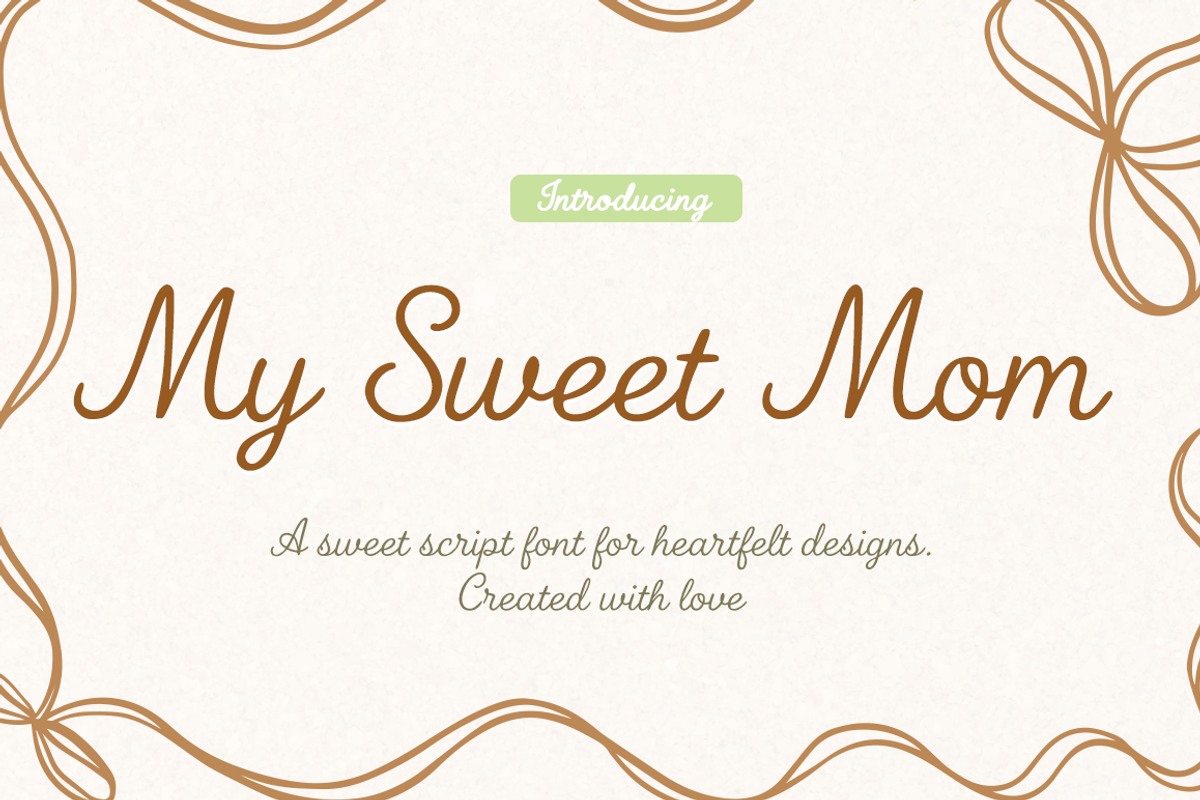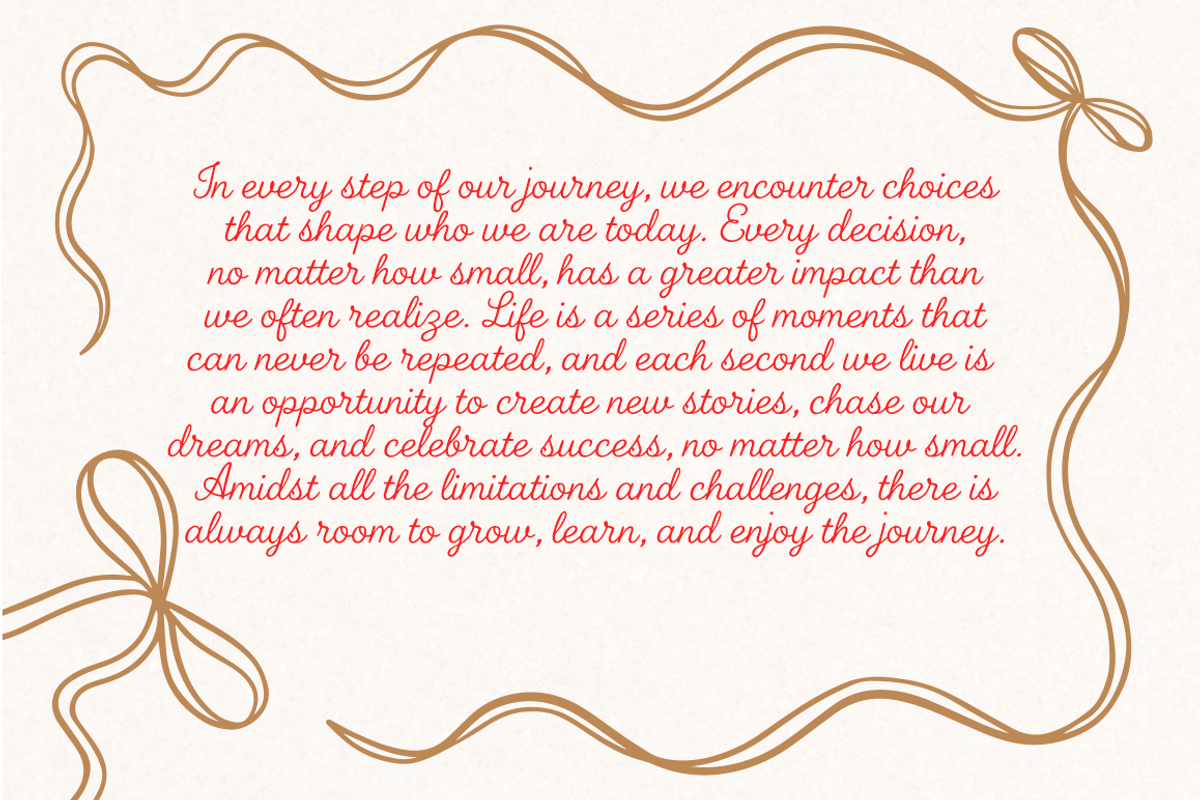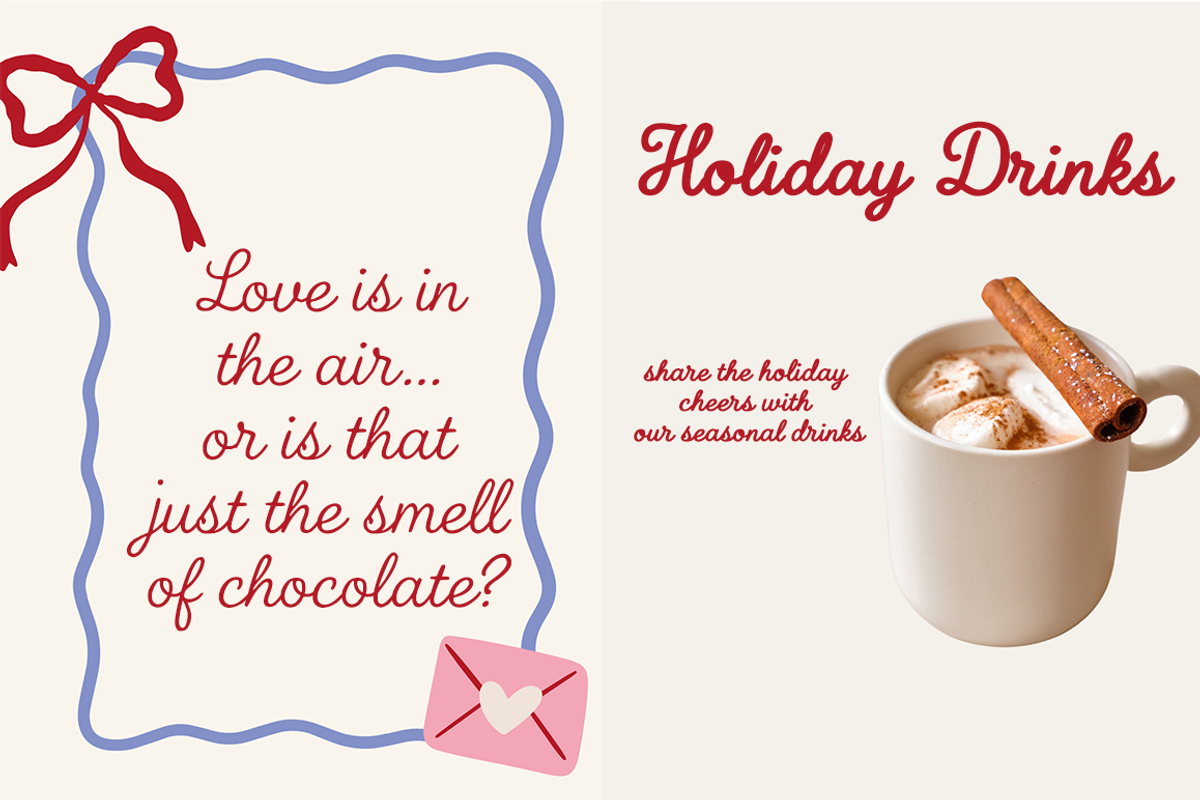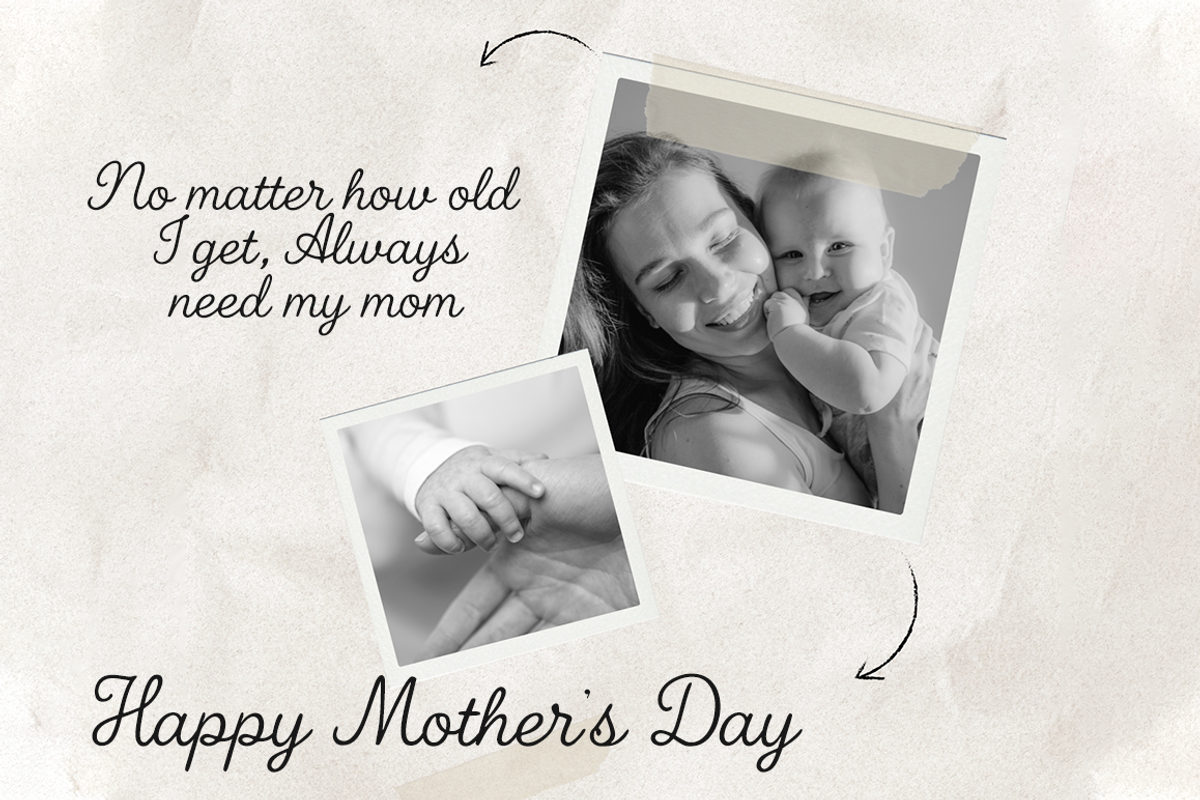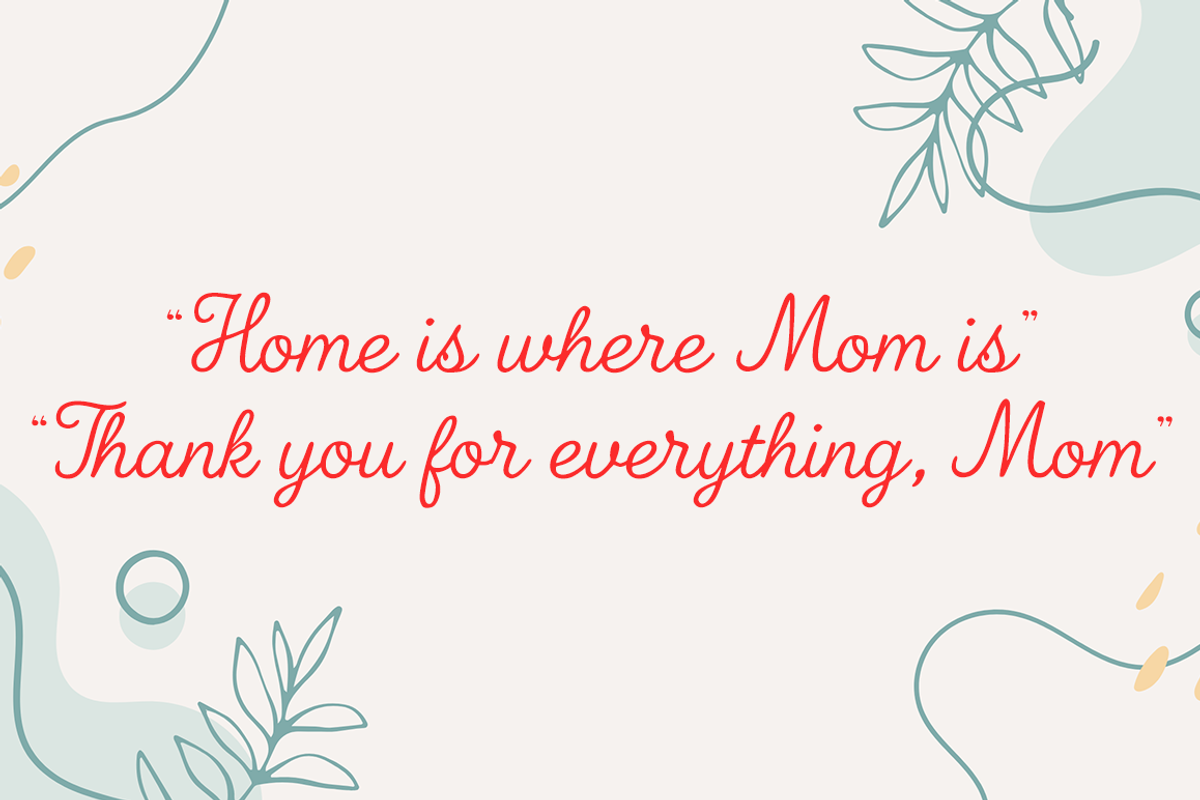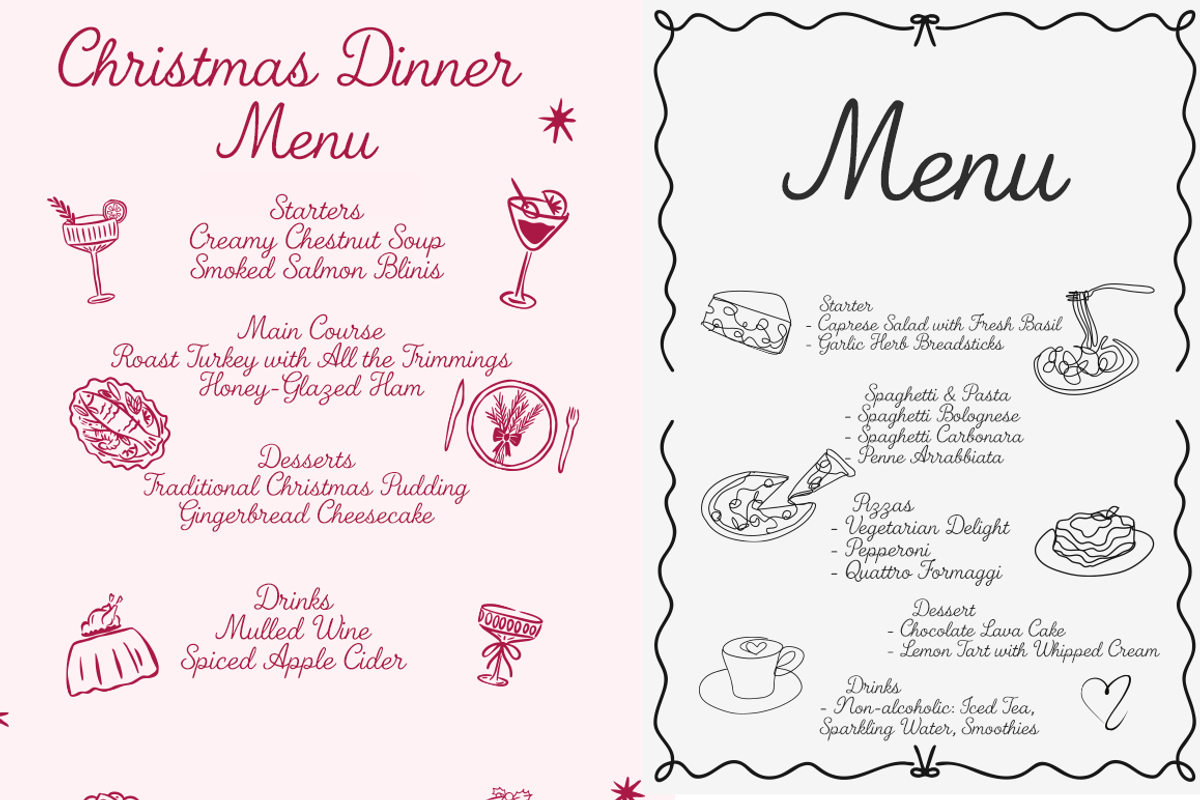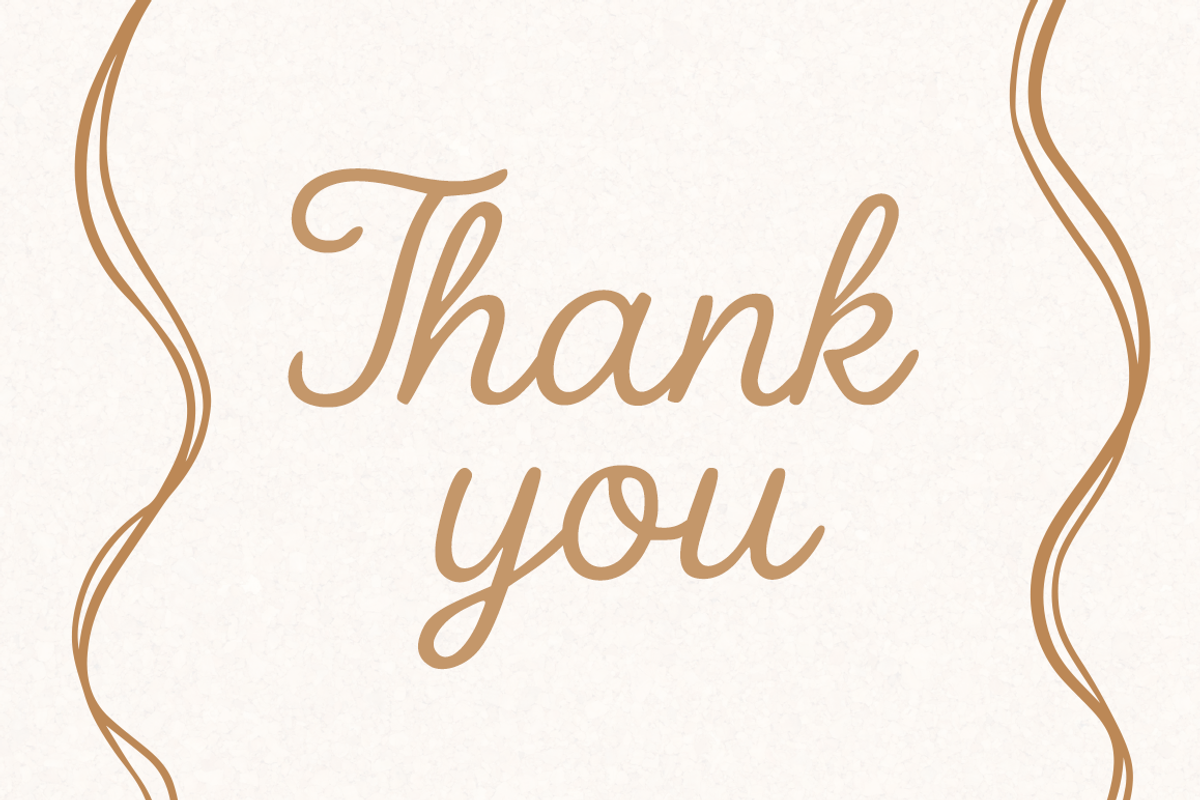
My Sweet Mom
My Sweet Mom is a smooth and elegant script font designed for heartfelt and feminine-themed projects. Suitable for greeting cards, invitations, packaging, and more.